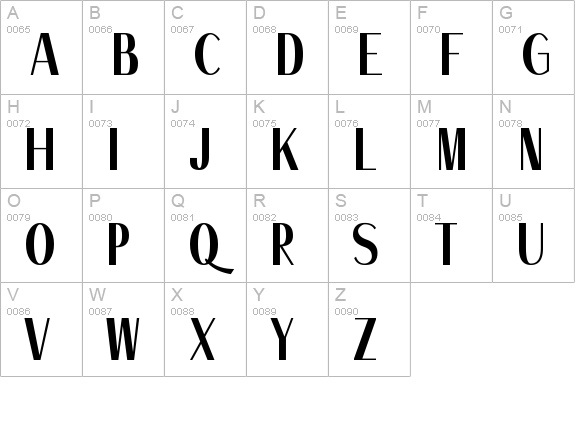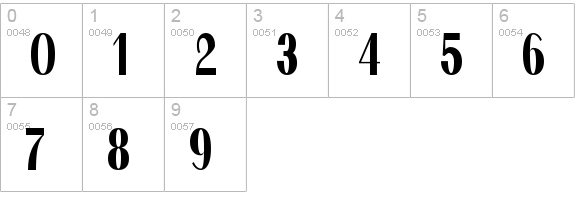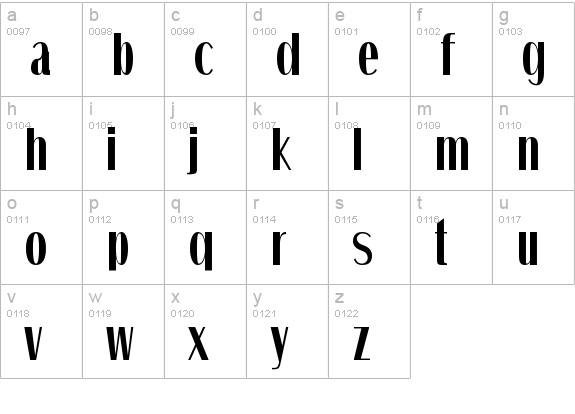
Quiet Streets Font Details
Introducing Quiet Streets font - a modern and elegant typeface that exudes simplicity and sophistication. Its clean lines and subtle curves make it perfect for a variety of design projects, from branding to editorial design. The Quiet Streets font is designed to bring a sense of calmness and tranquility to your work, making it ideal for creating a peaceful and harmonious visual experience.